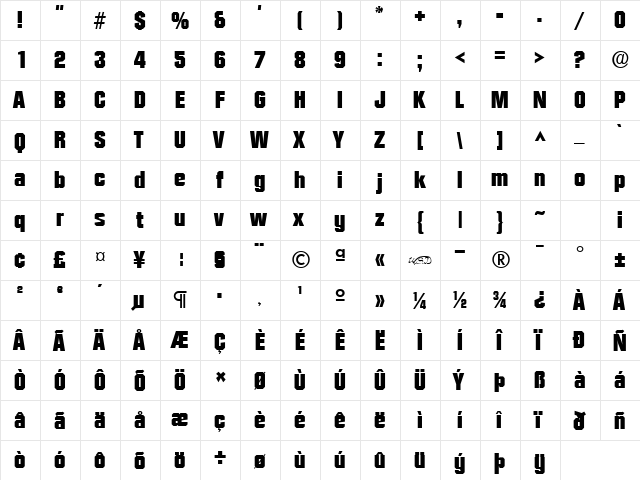
FacetBlack normal Font Preview
FacetBlack normal
Design Context for FacetBlack Typeface
FacetBlack takes a measured approach to typography — its balanced proportions and neutral character make it a reliable workhorse for both digital and print work.
Pro Tip: Use FacetBlack in both headline and body roles to test its range before committing to a single application.